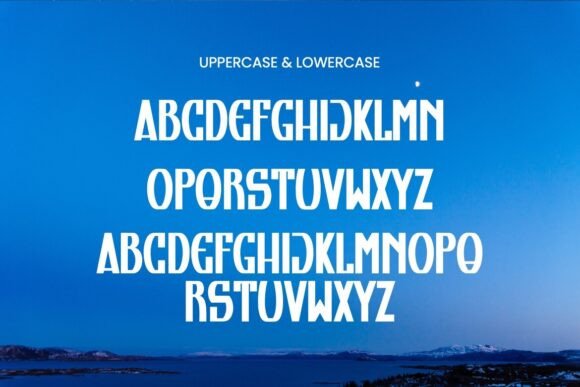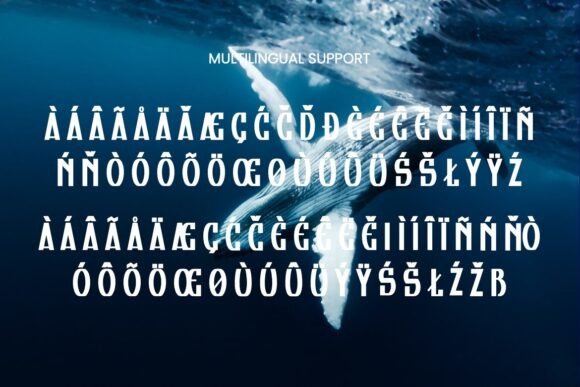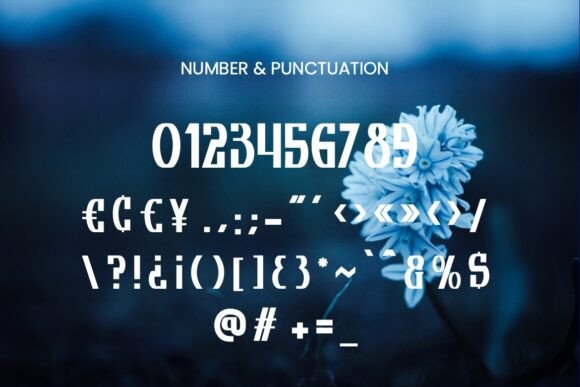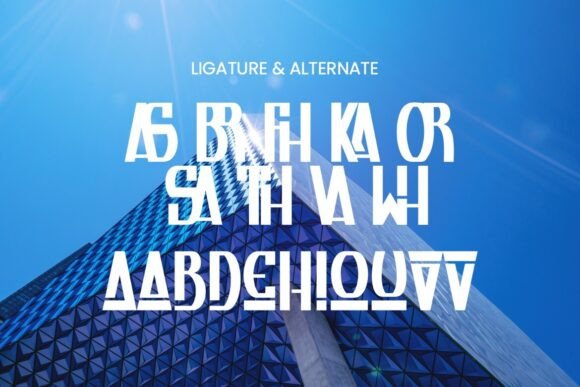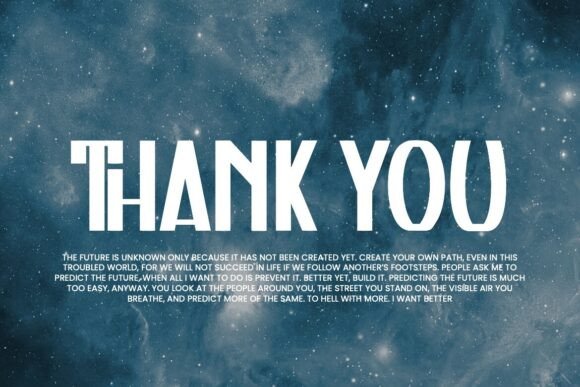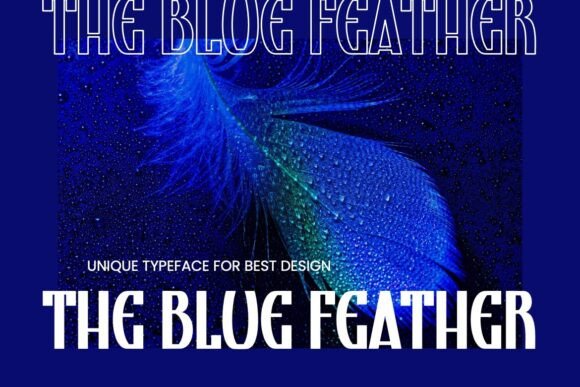
Introduction to Kaitszeo Font
Kaitszeo is a modern sans-serif display font with clean, bold lines.
It’s perfect for making strong, eye-catching headlines or titles Its simple, geometric style gives a fresh and contemporary look to any design.
Key Features of Kaitszeo Font